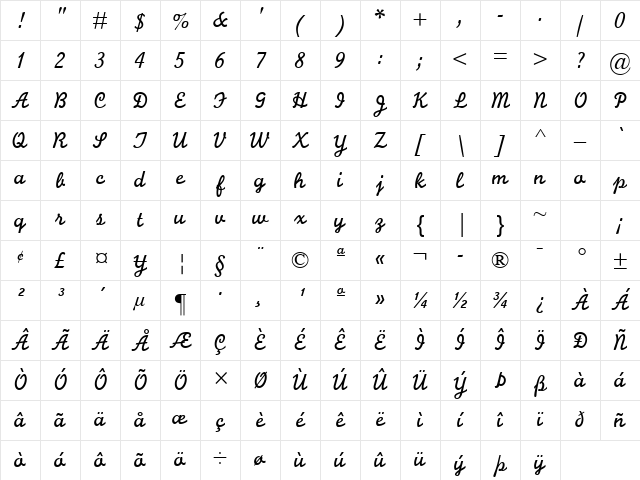
Monoline Script MT Std Regular
Design Context for Monoline Script MT Std
Monoline Script MT Std flows with the natural rhythm of handwritten lettering, making it ideal for designs that call for warmth and personal expression.
Font Pairing: Combine Monoline Script MT Std with a simple geometric sans for maximum contrast - the tension between flowing curves and clean structure is a classic typographic pairing.
Pro Tip: Use Monoline Script MT Std for short runs of text - names, titles, or taglines. Extended body copy in script faces tires the eye quickly.